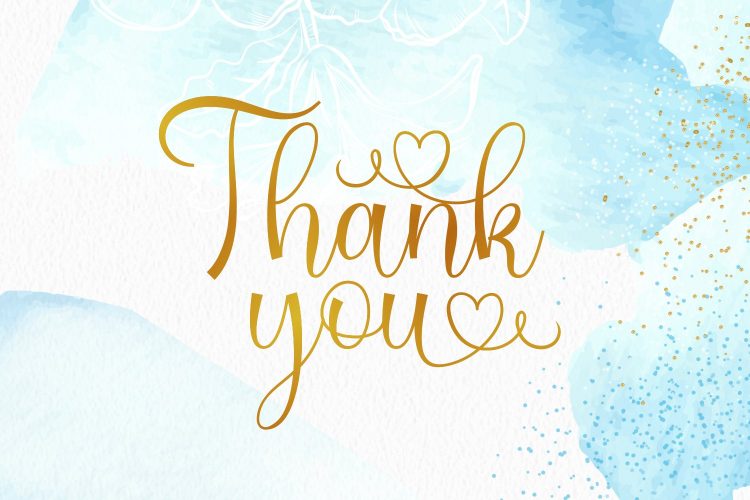
Every flower tells a story, and the most beautiful stories deserve the most beautiful typography. Maliya Script Florist Font is the flowing, delicate script font created for brands that live at the intersection of nature, beauty, and artisanal craftsmanship — a font as graceful as the blooms it helps to brand.
Maliya’s aesthetic is defined by its feather-light strokes and organic flow. Where many script fonts feel constructed, Maliya feels grown — as if each letterform emerged naturally, unhurried and intentional. The delicate variation between thick and thin strokes gives the font a hand-brushed quality that photographs beautifully and reproduces crisply at any scale. The gentle, slightly bouncing baseline adds movement and life without sacrificing the overall sense of calm elegance.
Maliya is the ideal florist branding font for flower shop logos, bouquet wrapping, artisan plant labels, and garden lifestyle packaging. Wedding florists will find it invaluable for ceremony table signage, floral arrangement tags, bridal party gift bags, and venue styling cards that match the delicate beauty of fresh floral arrangements. Organic skincare brands, botanical tea companies, and eco-friendly home fragrance businesses will discover that Maliya immediately communicates purity, care, and natural quality to their customers.
The font performs equally well on digital platforms — social media graphics, website headers, email newsletter banners, and Pinterest pins all benefit from Maliya’s distinctive personality. Pair it with clean sans serif body text and natural photography for a brand aesthetic that is both contemporary and timeless.